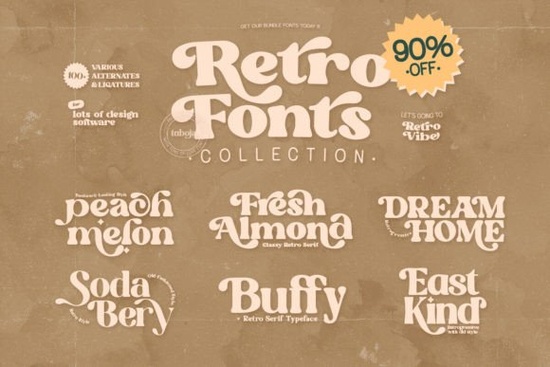
If you're looking for a set of retro-inspired typefaces that work well across branding, social media graphics, wedding stationery, or print-on-demand products, the Retro Fonts Collection Font is a practical, no-fuss option. It bundles six distinct fonts each with its own personality and vintage charm into one easy-to-use download. No need to hunt down individual styles or worry about inconsistent licensing. Everything’s PUA encoded, so accessing alternate glyphs, swashes, and ligatures is straightforward in design apps like Illustrator, Photoshop, or even Canva (with desktop app or web version that supports OpenType features).
What’s actually in the Retro Fonts Collection Font?
This isn’t just a random grouping of “old-looking” fonts. Each one has been designed with real-world use in mind:
- Fresh Almond Font – A soft, rounded sans-serif with gentle curves and friendly spacing. Great for café branding or lifestyle blogs. You can see Fresh Almond Font on Creative Fabrica.
- Peach Melon Font – A playful, slightly bouncy script that reads clearly at medium sizes. Works especially well for food packaging or summer-themed social posts. Check out Peach Melon Font.
- Dream Home Font – A clean, mid-century inspired serif with subtle flares and balanced contrast. Ideal for real estate branding or home decor labels. See Dream Home Font.
- Buffy Font – A bold, condensed display face with strong vertical stress perfect for posters, t-shirt designs, or podcast cover art. Find it as Buffy Font.
- Sodabery Font – A cheerful, hand-drawn script with uneven baselines and casual energy. Think greeting cards, baby shower invites, or small-batch soap labels. View Sodabery Font.
- East Kind Font – A relaxed, low-contrast serif with open counters and generous x-height. Fits well in editorial layouts, blog headers, or boutique packaging. Browse East Kind Font.
How does this compare to other retro or serif fonts on Creative Fabrica?
Unlike single-font listings, this bundle gives you variety without overlap no two fonts feel like they’re competing for the same use case. If you’ve used Wildflower Apothecary Font, you’ll notice East Kind shares some of that organic warmth but with more structure. Fans of Magic Flash Font might appreciate Buffy’s punchy presence but Buffy leans more into 60s signage than flashy neon. And while Bethany Elingston Font offers elegant script versatility, Peach Melon and Sodabery give you lighter, more approachable alternatives for everyday projects.
Who benefits most from this collection?
Small business owners who design their own Instagram graphics or product labels will save time switching between fonts for different moods playful, refined, nostalgic, or bold. Print-on-demand sellers often need multiple font options to keep designs fresh across mugs, totes, and wall art; having six cohesive yet distinct styles helps avoid visual fatigue. Crafters making digital wedding kits or printable planners will find Dream Home and Fresh Almond especially useful for clean, readable layouts. Even hobbyists building personal blogs or newsletters get flexibility without overcomplicating their toolkit.
• Use the PUA-encoded glyphs sparingly: a single swash on an initial letter or a custom ampersand adds polish without overwhelming.
• Pair Buffy or Dream Home with a neutral sans (like Inter or Montserrat) for contrast in branding avoid pairing two high-contrast retro fonts together unless you’re going for intentional maximalism.
• For social media thumbnails or Etsy listing banners, stick to fonts with strong x-heights and open counters (Fresh Almond, East Kind) so text stays legible on small screens.
If you already use fonts like Et Emilia Grace Font for elegant script needs, consider how Peach Melon or Sodabery could fill in for more relaxed, hand-crafted moments. And if you're building a consistent brand voice, try starting with Dream Home for headings and Fresh Almond for body text it’s a quiet, effective combo that avoids trend fatigue.